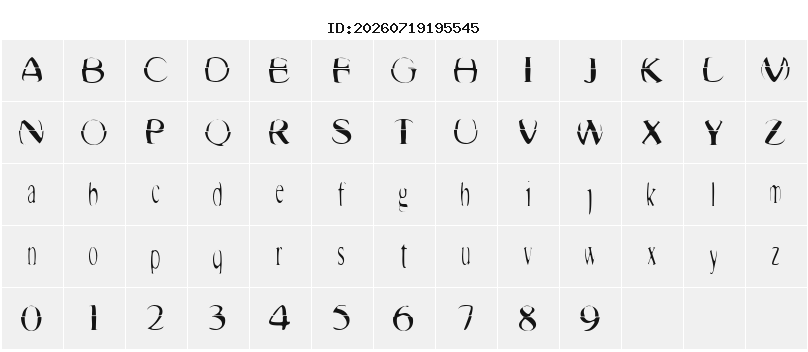
Essendon Preview
About Essendon.ttf
Essendon.ttf is a modern, elegant sans-serif font designed for ultimate readability and visual harmony. Perfect for branding, headlines, web design, and print materials.